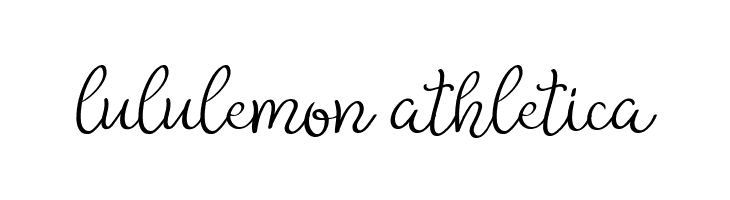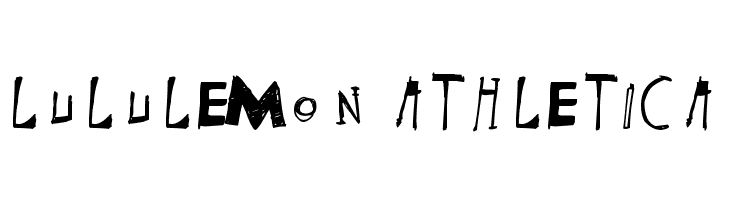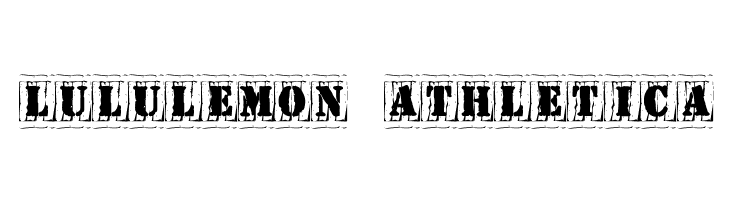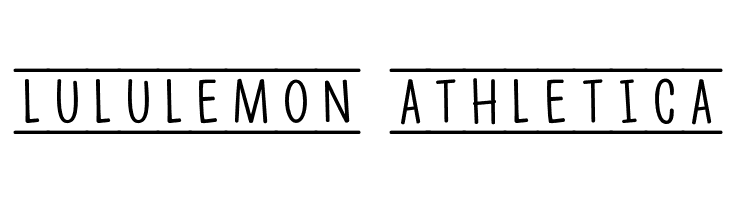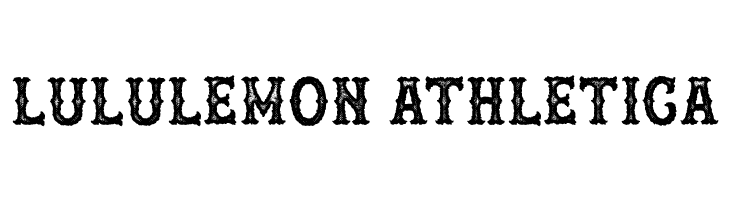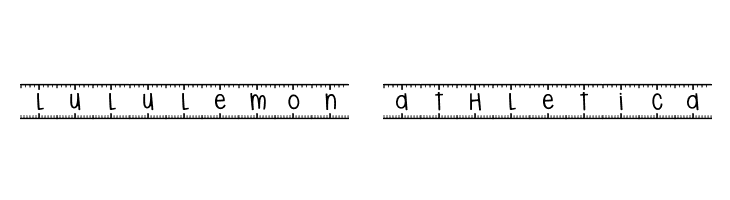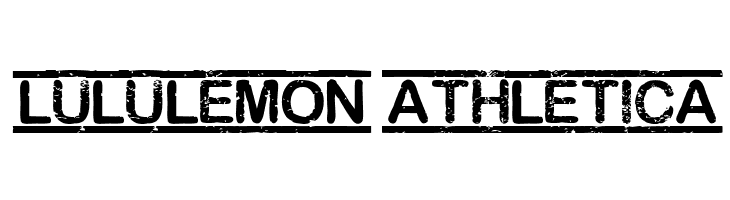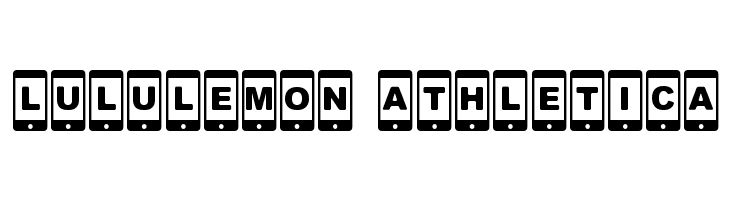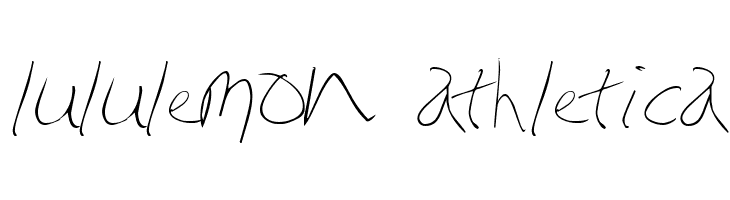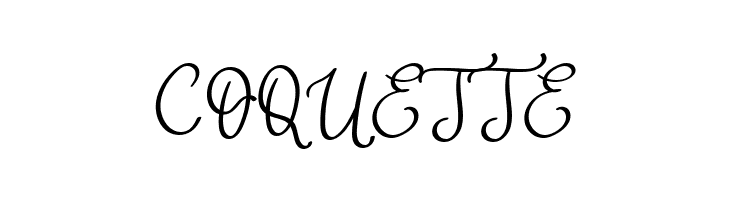
A ruler-themed font with bold, precise characters and measurement markings.
A rugged, distressed font with a hand-drawn, vintage style.
A bold, textured decorative font with a vintage, handcrafted feel.
A playful handwritten font with a pencil sketch style.
A bold, edgy font inspired by urban street art and skate culture.
A bold, tech-inspired font with characters inside smartphone frames.
A bold, sans-serif font with characters enclosed in smartphone-like frames.
A playful and romantic cursive script font with elegant, flowing strokes.